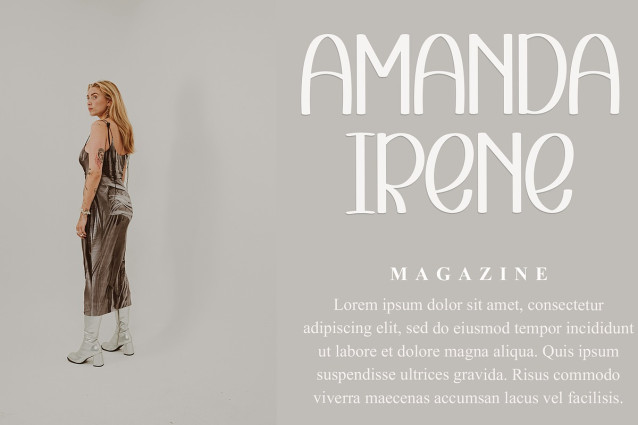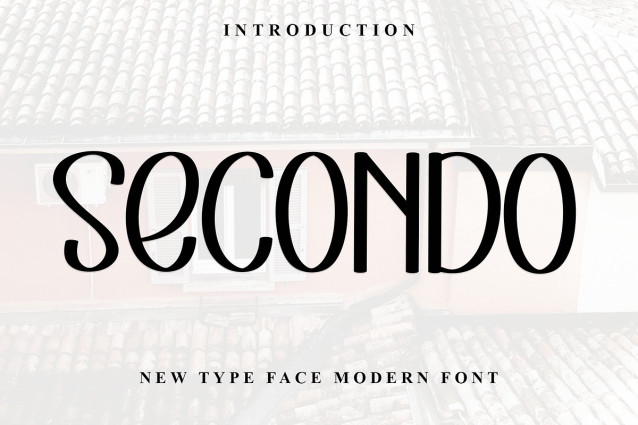
Secondo Playful Font
Secondo Playful Font is a beautiful and eye-catching font designed with a soft, unique touch. Its distinctive strokes give it a special character, making it meaningful and versatile for future use. With various characters, it’s perfect for design projects, crafts, and other creative works.